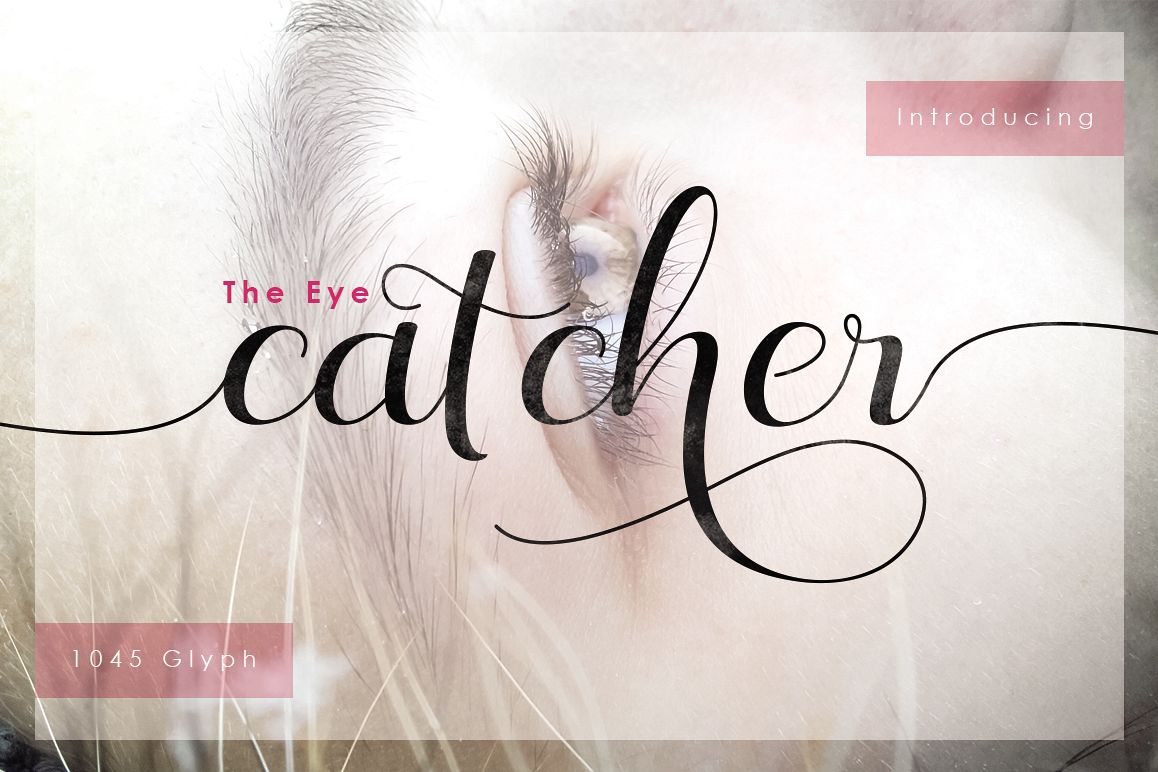
The Eye Catcher
Introduce The Eye Catcher + Swashes..
The Eye Catcher font goes with Modern and Creative Calligraphy, ready to give your design project
with fresh style.
This font have an 345 standard glyph + 703
glyph alternate in Open Type Pro Format.
There also available
Alternative Uppercase & Lowercase style and more swashes to get
stellar look.
Suitable for various purpose such as digital lettering, headings,
logos, wedding invitation, t-shirt, letterhead, signage, lable, news,
posters, badges, branding materials, t-shirt, print, business cards,
quotes, logo, poster, and suitable for any graphic design project.
Font Features :
• Standard Uppercase & Lowercase
• Alternative Uppercase & Lowercase
• International Languange Support
• Access All Alternate
• Punctuation & Number
• PUA Unicode Range
• Standard Ligatures
• Contextual Alternates
• Stylistic Set 1-26
• Caps Swash
• Open Type Pro support
• Swashes